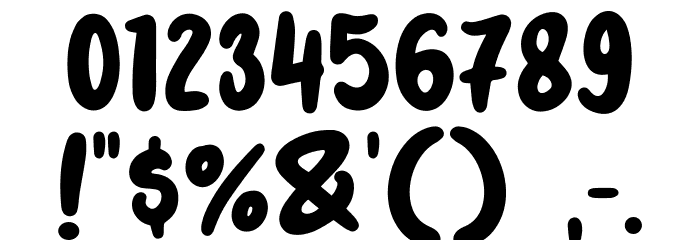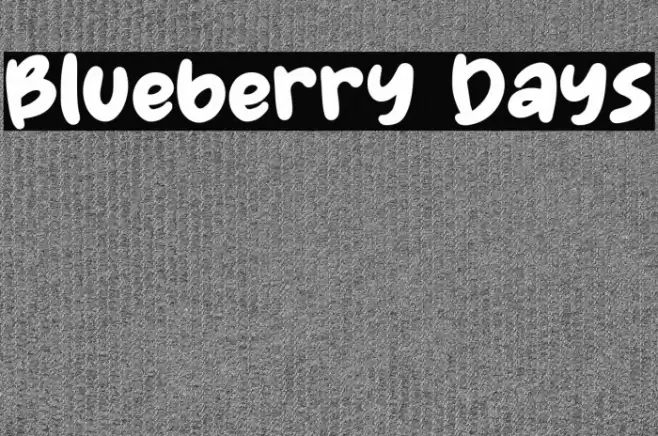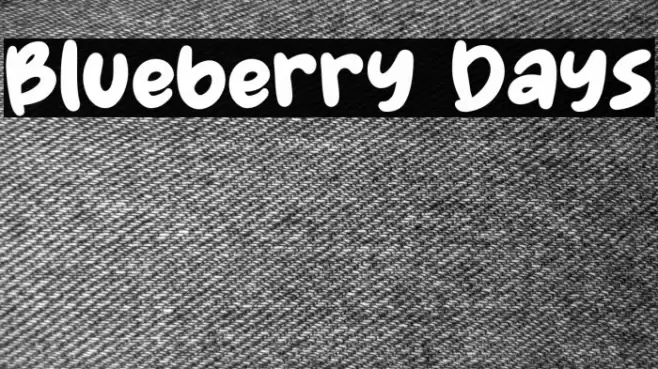
Blueberry Days Font
This playful and bold font features rounded, bubbly characters that exude a sense of fun and approachability. The letters are uniformly thick, with a consistent stroke width that gives the font a cohesive look. The uppercase and lowercase letters maintain a harmonious balance, with slightly exaggerated curves that add to the whimsical feel. The numerals and special characters follow the same design principles, ensuring a seamless integration across different types of text. This font is ideal for projects that require a friendly and informal tone, making it perfect for children's books, playful branding, or casual invitations. Its distinctive style ensures that it stands out while remaining legible and engaging.
A playful, bold font with rounded, bubbly characters perfect for informal and fun projects.
• Proposed Projects: Children's books, playful branding, casual invitations, greeting cards, and social media graphics.
• Category: Decorative/Display
• Overall Style: Playful, Whimsical
• Use Case: Headlines, Logos, Informal Text